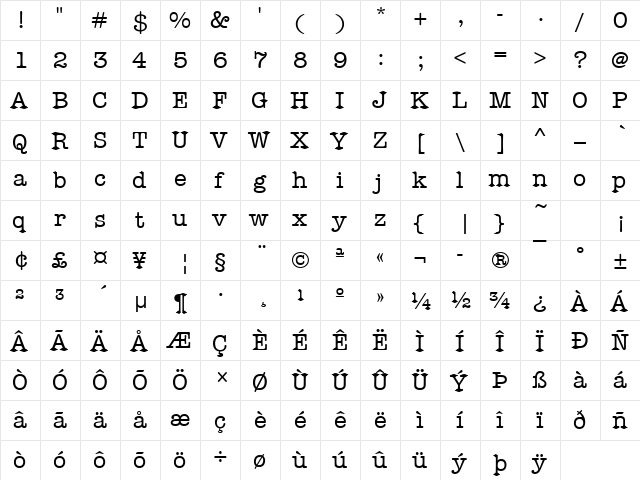
AmericanTypItcDMed Regular
Design Context for AmericanTypItcDMed Typeface
AmericanTypItcDMed is a composed and adaptable typeface that performs quietly and consistently across a wide range of design contexts.